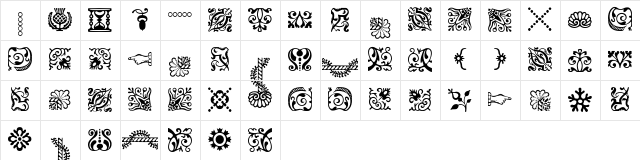
ACaslon Ornaments Regular
Design Context for ACaslon Ornaments
ACaslon Ornaments is built around its visual character rather than neutral utility - its distinctive forms are designed to make an impression at display sizes.
Font Pairing: Pair with a clean neutral sans-serif for body copy to let ACaslon Ornaments's character lead without overwhelming the composition.
Pro Tip: Use ACaslon Ornaments exclusively at display sizes - it was designed to be seen, not read at length. Let a neutral companion handle body copy.